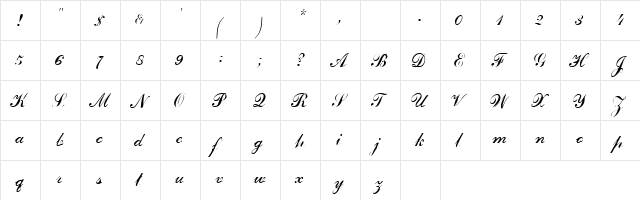
CommercialScript3 Regular Font Preview
CommercialScript3 Regular
CommercialScript3 Regular Font Details
Design Context for CommercialScript3 Typeface
CommercialScript3 flows with the natural rhythm of handwritten lettering, making it ideal for designs that call for warmth and personal expression.
Font Pairing: Combine CommercialScript3 with a simple geometric sans for maximum contrast — the tension between flowing curves and clean structure is a classic typographic pairing.
Pro Tip: Use CommercialScript3 for short runs of text — names, titles, or taglines. Extended body copy in script faces tires the eye quickly.